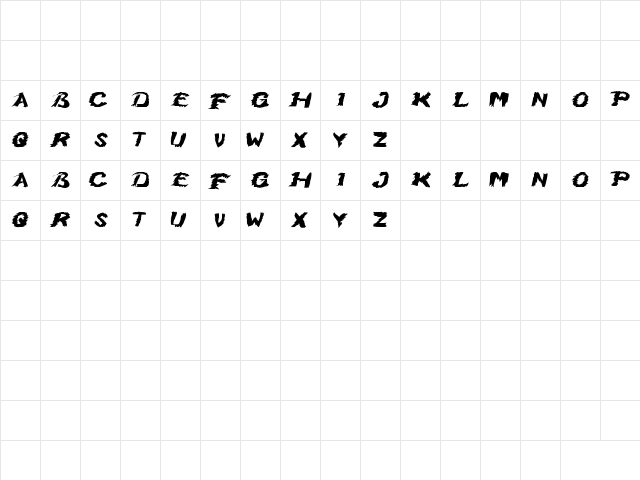
Grumpy Cat Regular
Design Context for Grumpy Cat Typeface
Grumpy Cat is a composed and adaptable typeface that performs quietly and consistently across a wide range of design contexts.